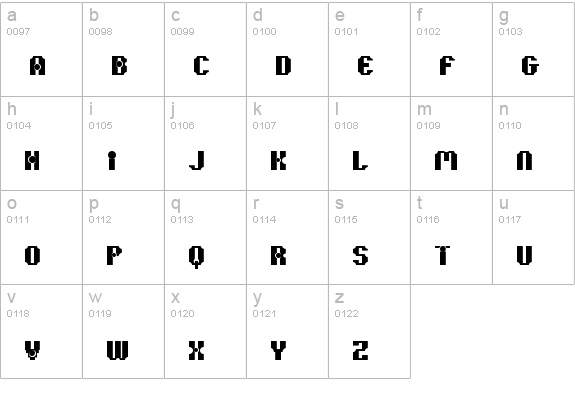
37 Kilobyte Font Details
The 37 Kilobyte font is a unique and eye-catching typeface that is sure to make your design projects stand out. With its bold and modern look, this font is perfect for headlines, logos, posters, and more. The 37 Kilobyte font is freely available to download at FontsMarket.com, making it easy to add a touch of creativity to your work without breaking the bank. Whether you're a designer looking for a fresh new font or a business owner in need of a stylish branding solution, the 37 Kilobyte font is a versatile choice that won't disappoint. Download it today and start creating stunning designs with ease!